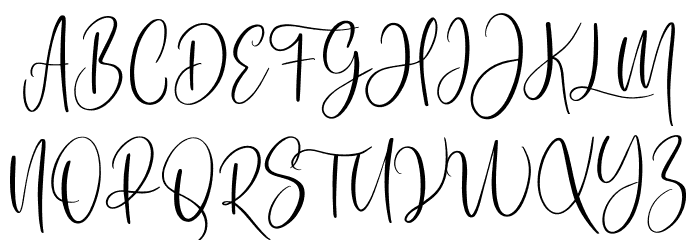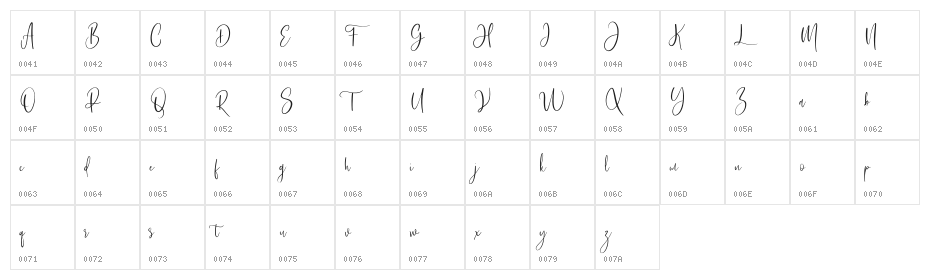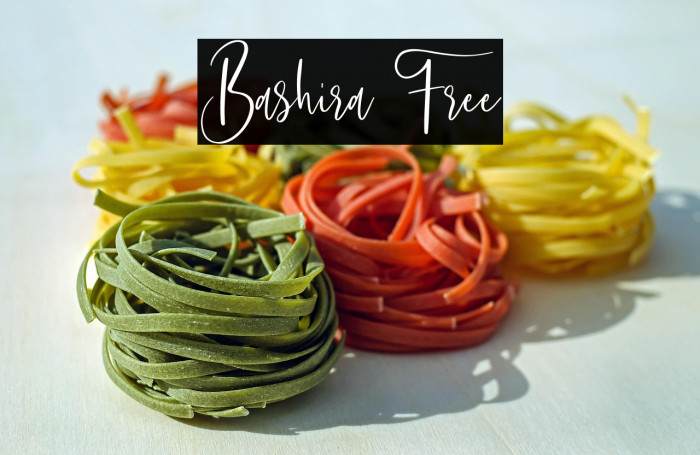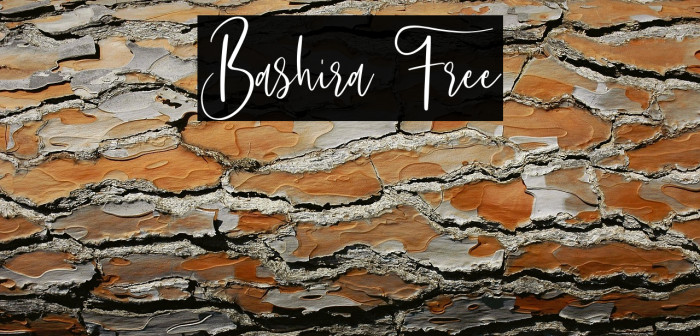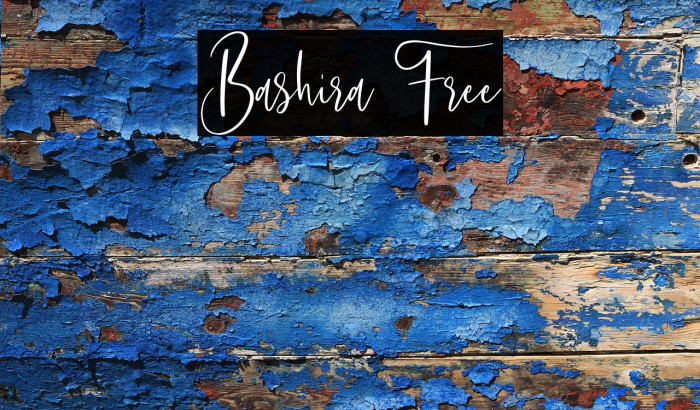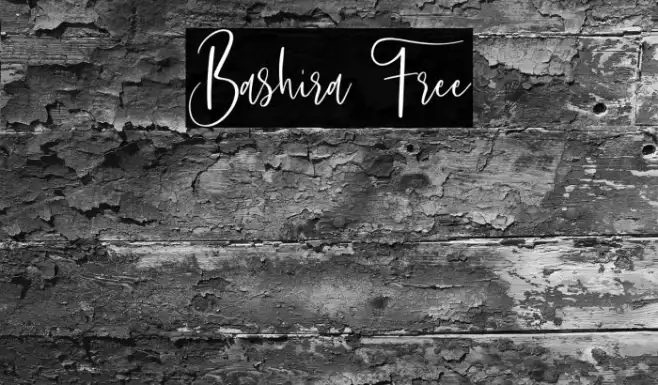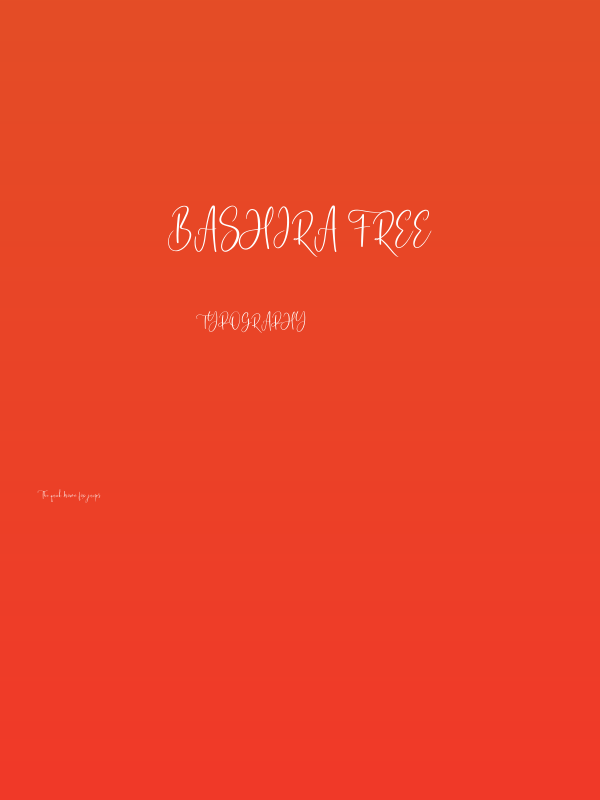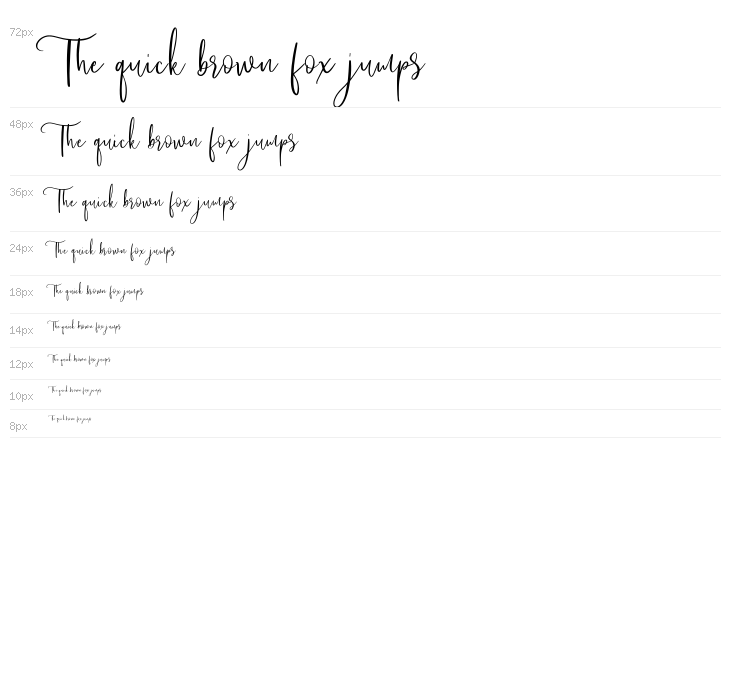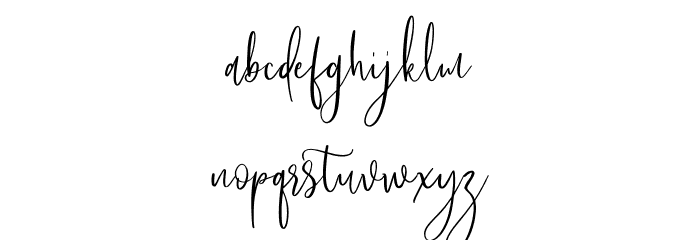
Bashira Free Font
Bashira Free Description
This font exudes elegance and sophistication with its flowing, cursive script style. The letters are intricately designed with smooth, sweeping curves and delicate loops, giving it a refined and graceful appearance. The uppercase letters are bold and prominent, while the lowercase letters maintain a consistent, fluid motion. The font's overall aesthetic is both modern and timeless, making it suitable for a variety of creative projects. Its artistic flair is complemented by a balanced contrast in stroke thickness, adding to its visual appeal.
| Overall Style | Elegant, Modern |
| Proposed Projects | Ideal for wedding invitations, branding, greeting cards, and elegant packaging designs. |